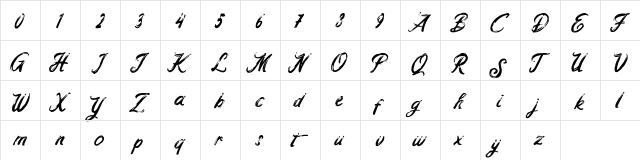
Hello Vintage Hello Vintage
Design Context for Hello Vintage Typeface
Hello Vintage wears its vintage influences proudly, with letterforms that recall mid-century signage, classic packaging, and nostalgia-driven design.
Ideal for diner signage, record shop branding, 70s/80s-themed projects, and heritage product labels.
Font Pairing: Combine Hello Vintage with a simple slab or neutral sans — period-accurate companions reinforce the vintage feel without competing for attention.
Pro Tip: Lean into Hello Vintage's period character by pairing it with aged paper textures, muted colour palettes, and vintage illustration styles.